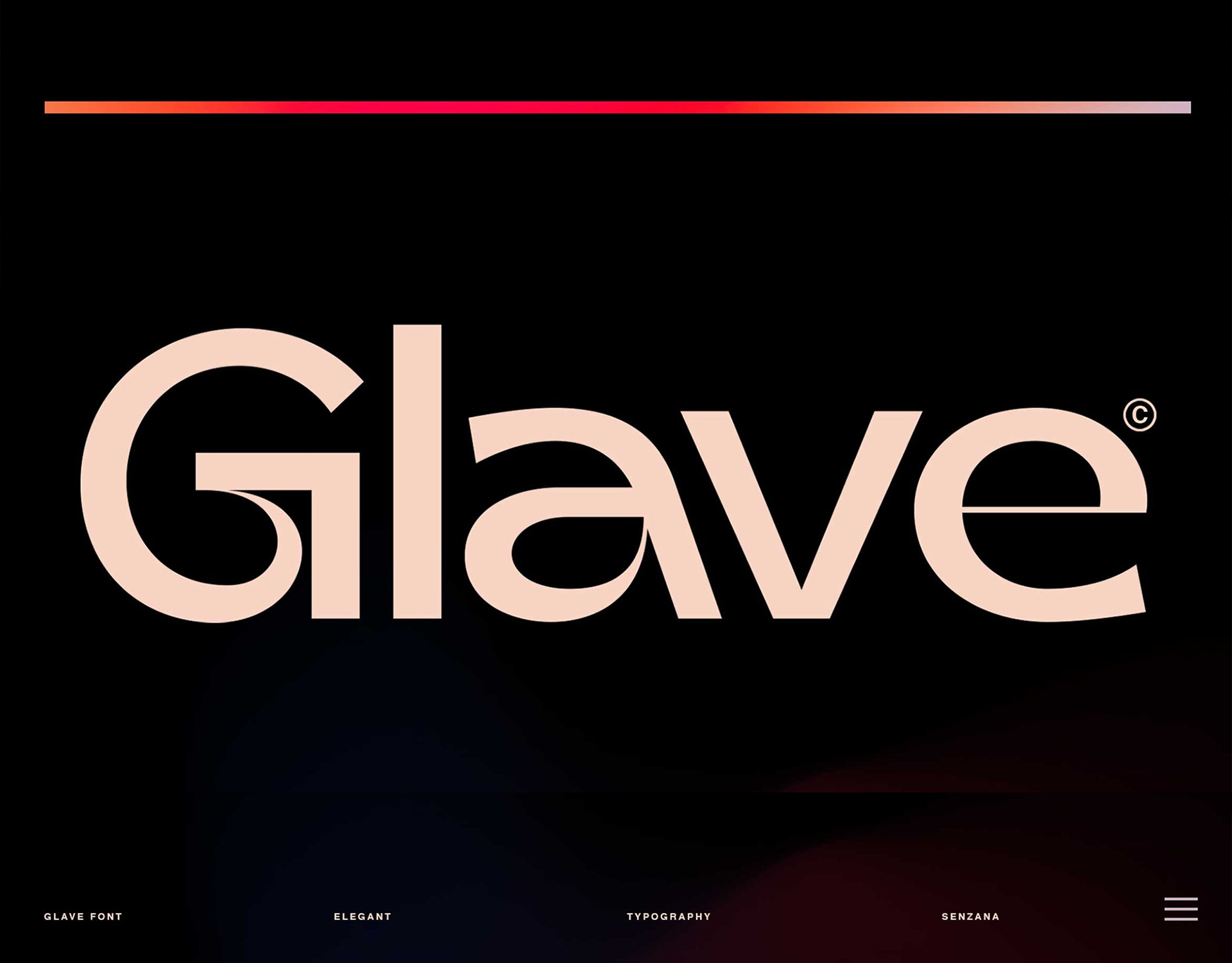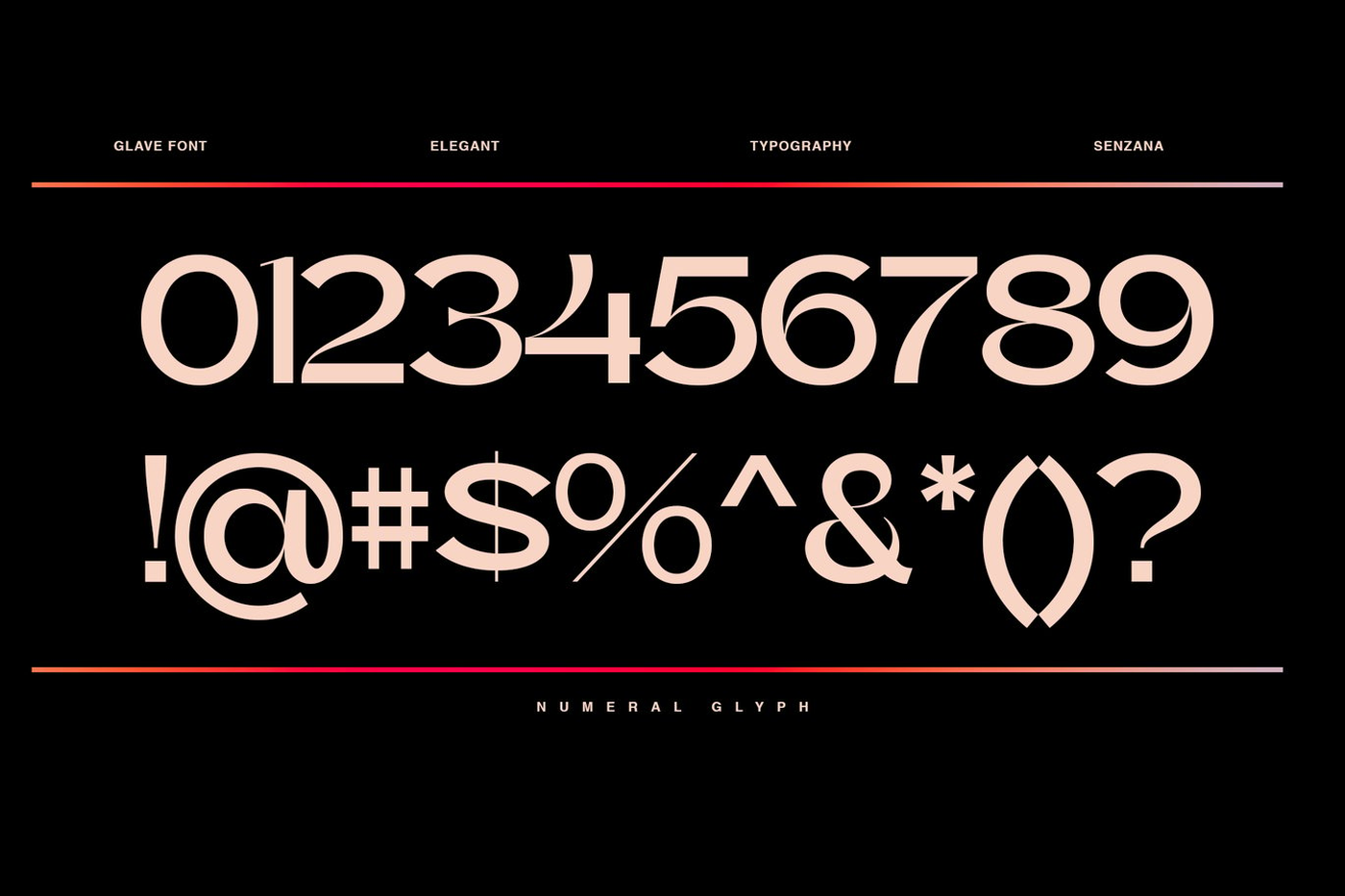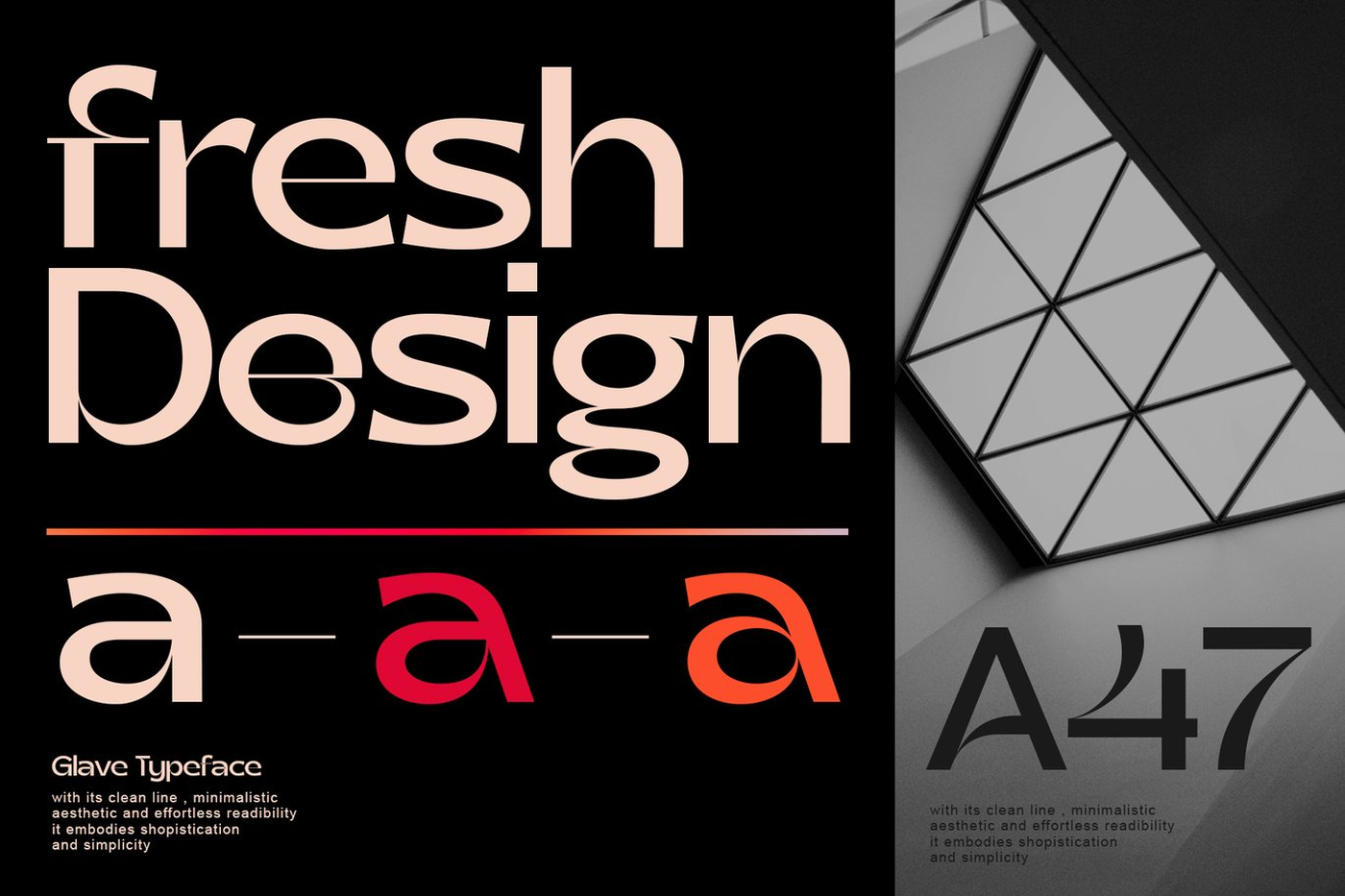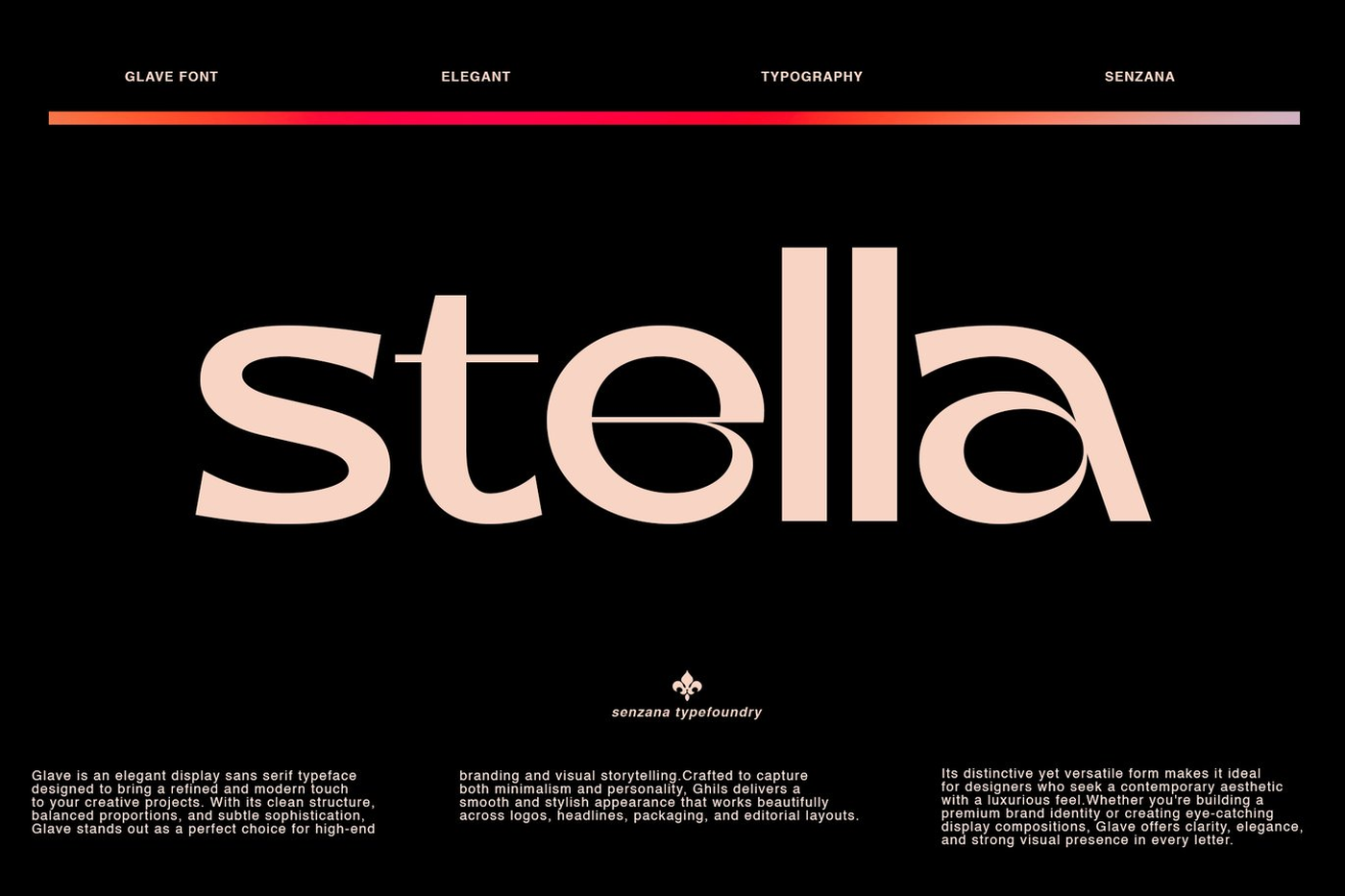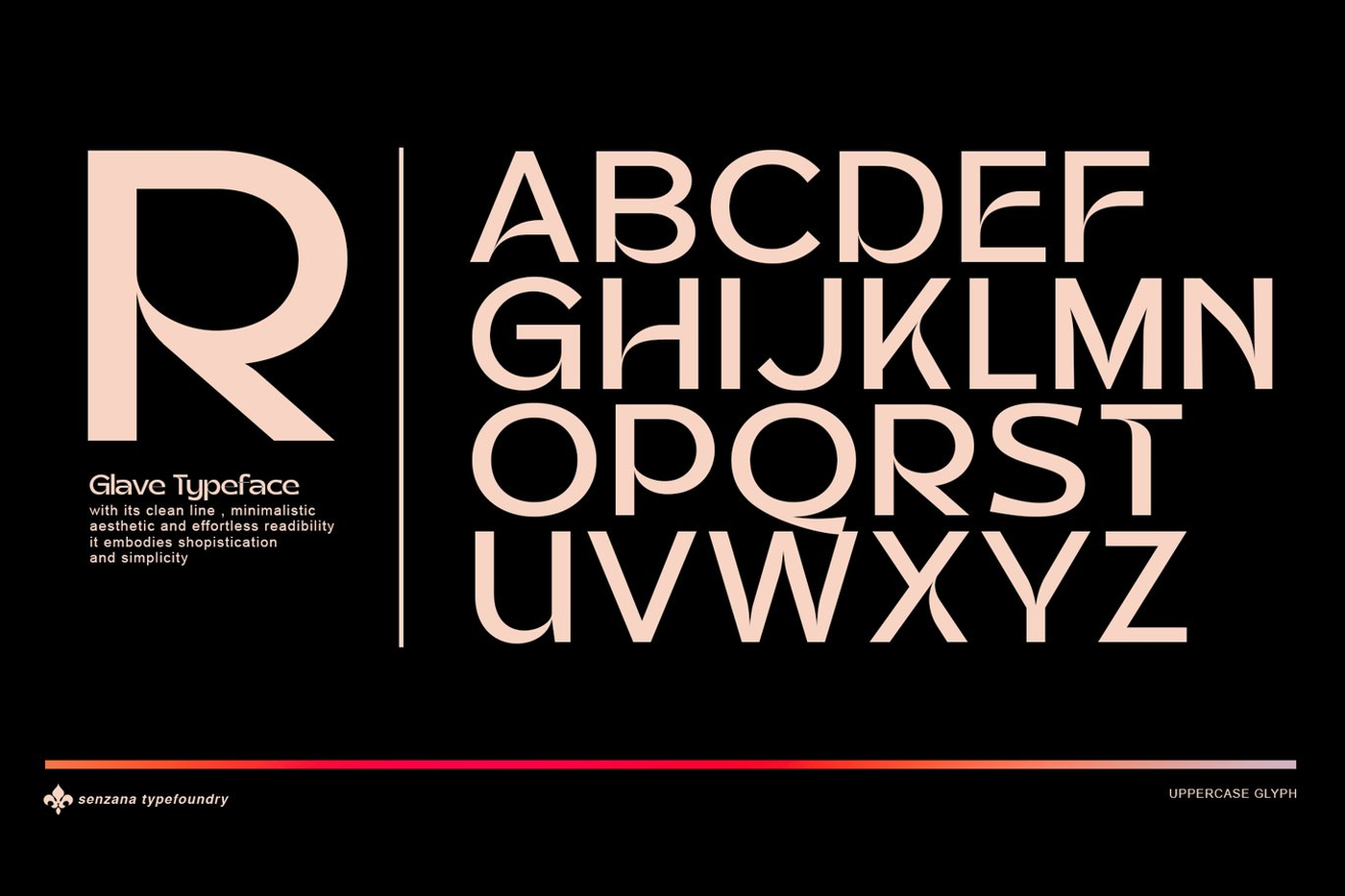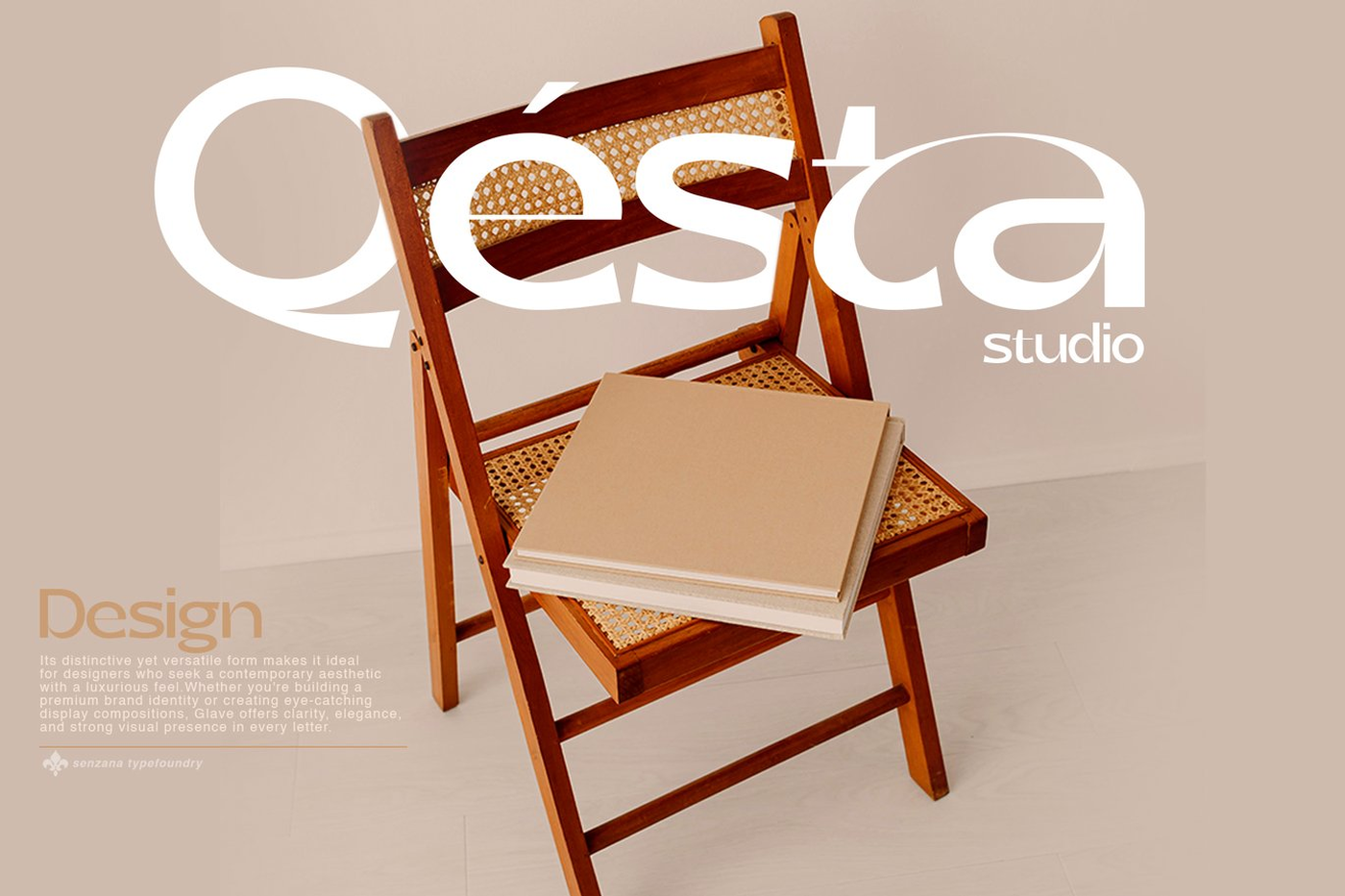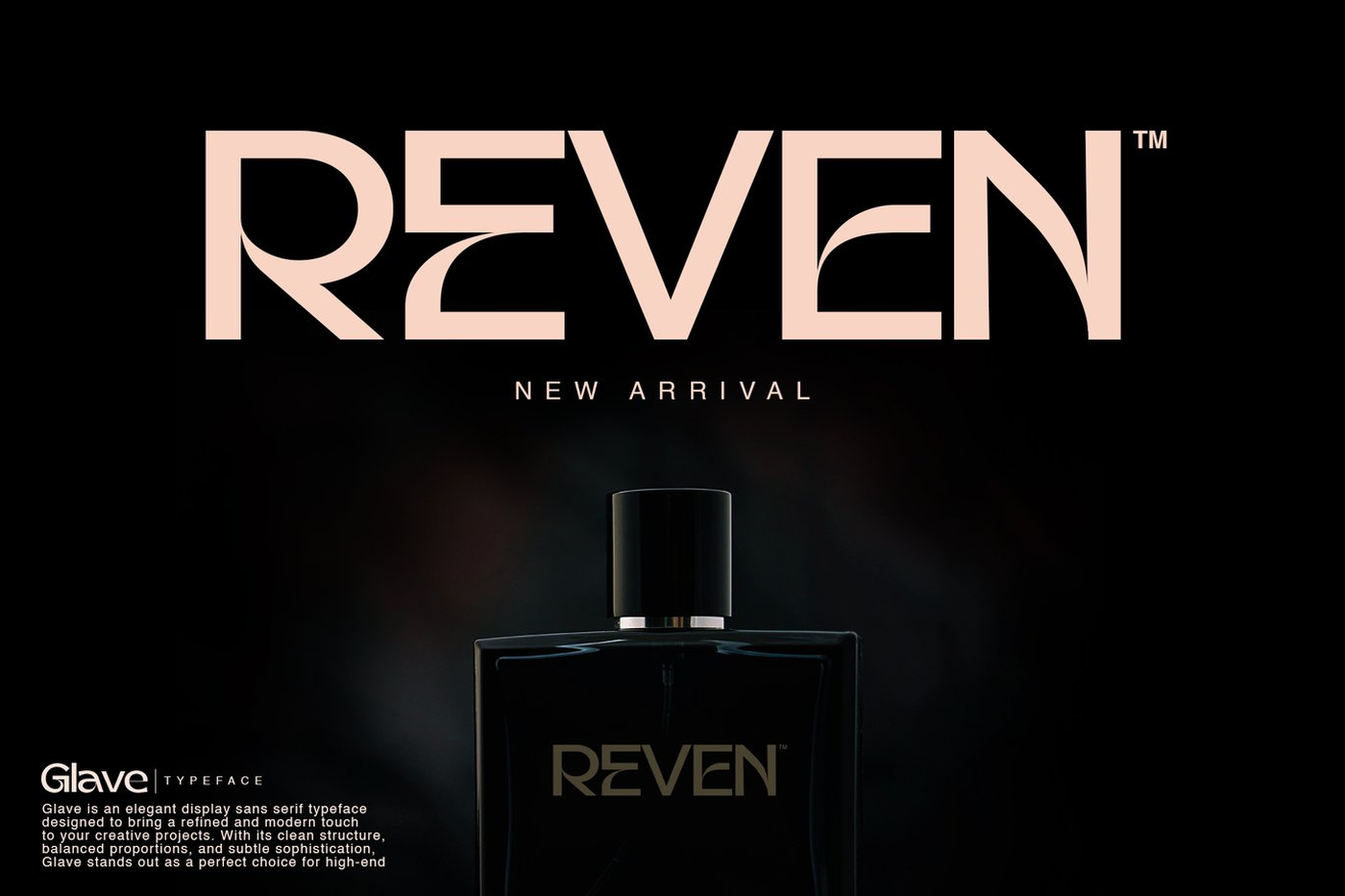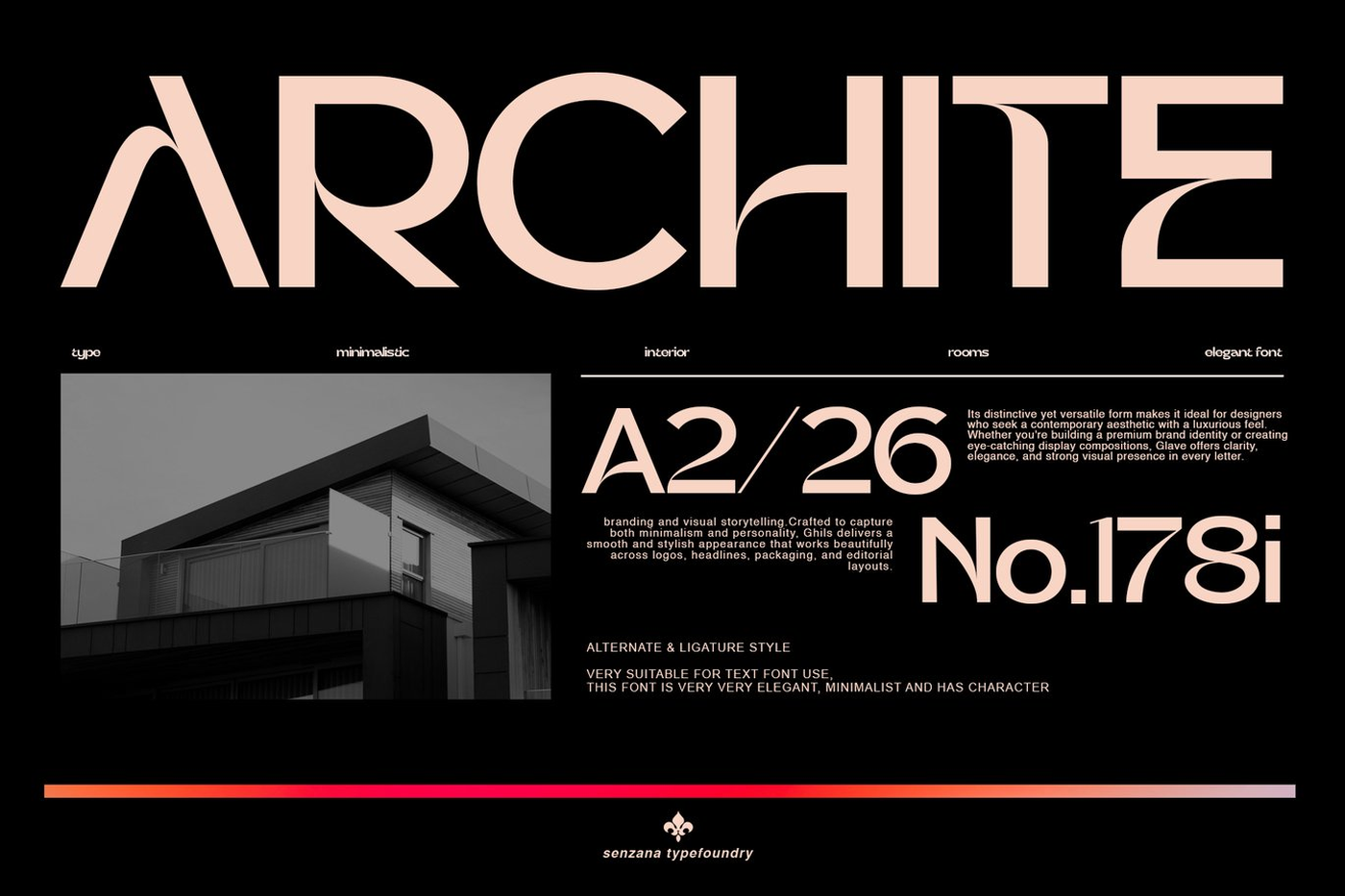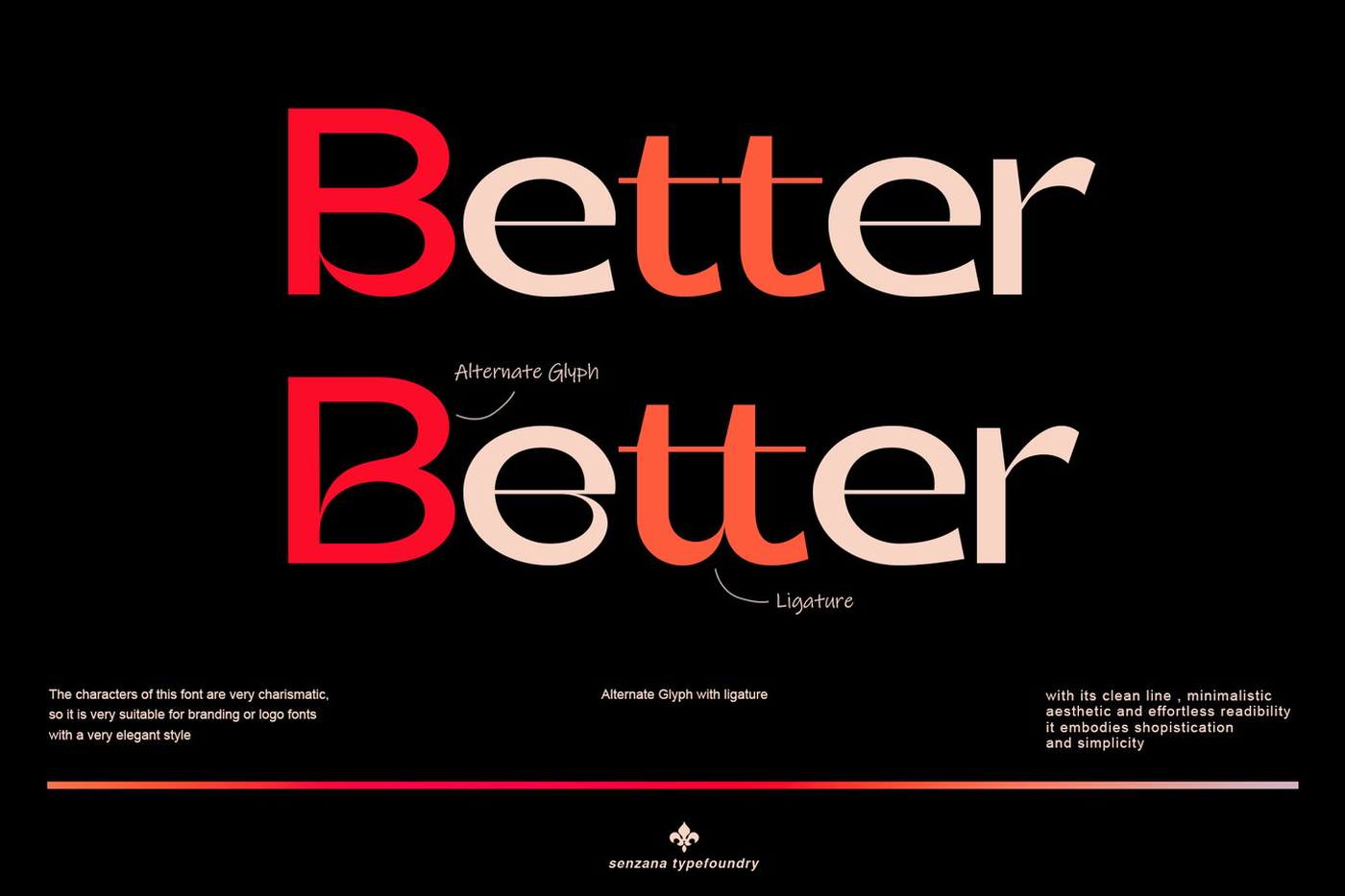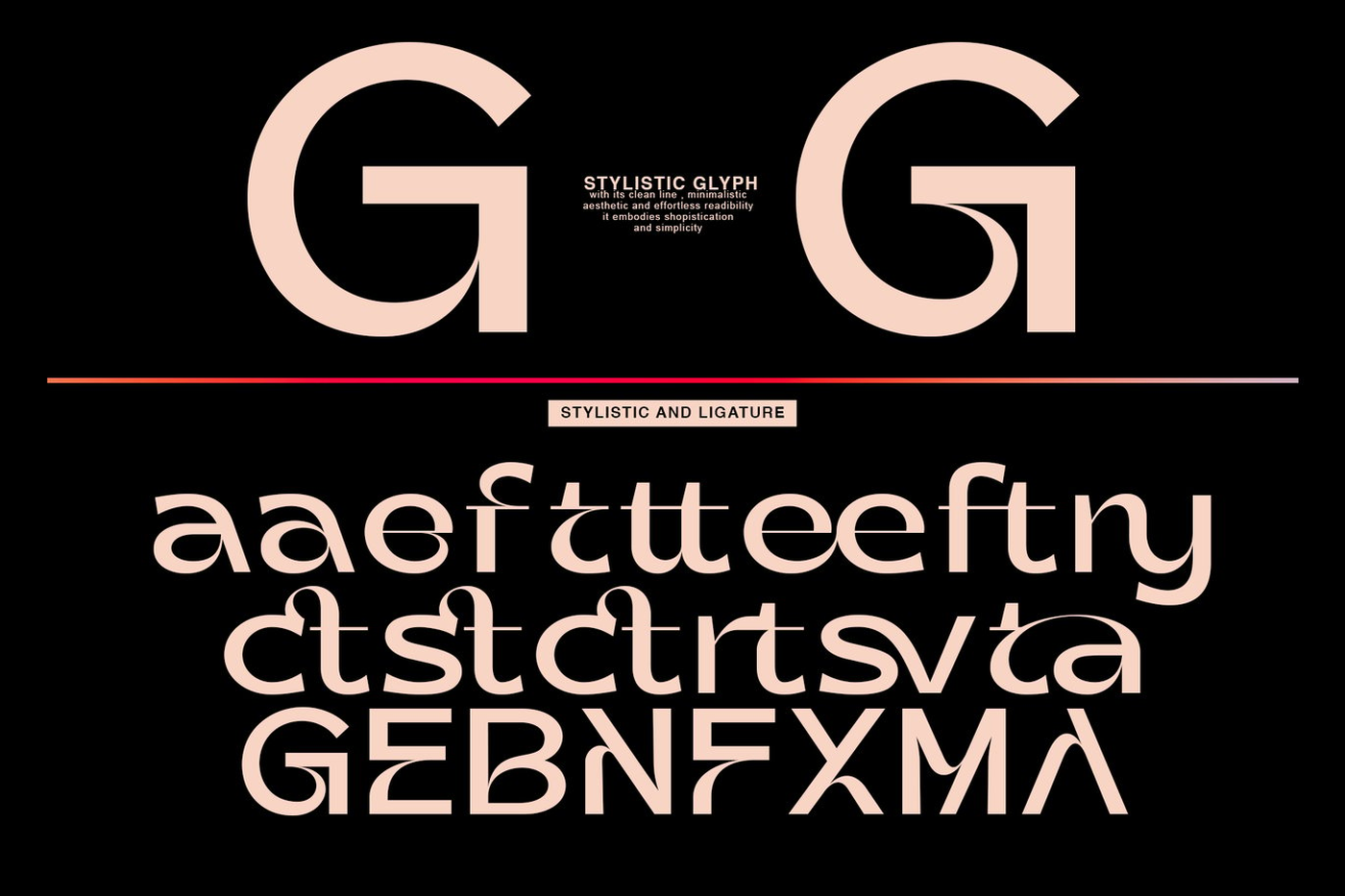
Glave - Modern Display Font
Glave is a modern display typeface that blends minimalist beauty with a distinctive, refined character. Crafted with clean lines and precise proportions, it delivers an elegant presence without excess—perfect for brands that aim to appear premium, sophisticated, and confidently unique. Every letter in Glave is more than just a shape—it’s a visual statement. Its subtle stylistic glyphs and thoughtfully designed ligatures offer high flexibility, allowing you to create exclusive and standout typography. This is a font that is not only read, but felt.